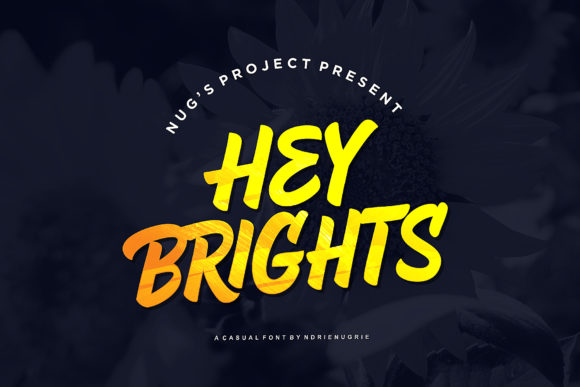
Hey Brights Font
Ignite your creativity with Hey Brights Font! Let your words dance in style with this captivating all-caps display font, meticulously crafted by the renowned Andrie Nugrie. Experience the vibrant essence of Hey Brights, where every character bursts with a casual charm like a ray of sunshine.
Step into a realm where imagination knows no bounds. Hey Brights is the perfect canvas for your creative adventures, effortlessly elevating your designs to new heights. Whether you're crafting eye-catching headlines, playful social media posts, or stunning logos, Hey Brights will make your words shine with a unique charisma that captivates every eye.
Unlock the endless possibilities that await you. Hey Brights is a versatile font, adapting seamlessly to any design concept you envision. Imagine your website headers pulsating with energy, your posters radiating a fun-loving vibe, or your branding materials exuding a touch of playful sophistication. The possibilities are as limitless as your imagination!
Indulge in the joy of creative expression with Hey Brights. Its casual style invites you to embrace your playful side, while the all-caps design adds a touch of bold confidence to any message. Let Hey Brights become your font of choice for projects that demand a splash of vibrancy and a dash of whimsy.